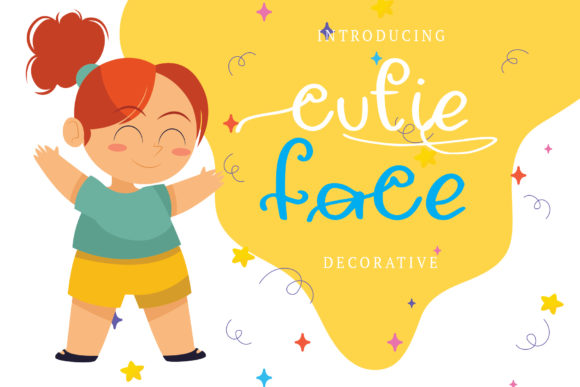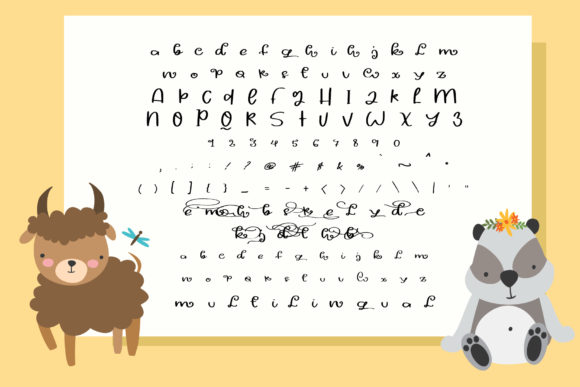
Introducing Cutie Face Font: The Ultimate Whimsical Handwritten Font
Are you tired of using the same old fonts in your designs? Do you want to add a touch of joy and playfulness to your creations? Look no further than Cutie Face Font, a beautiful, bouncy, and whimsical handwritten font that’s sure to brighten up any design.
What is Cutie Face Font?
Cutie Face Font is a unique and charming handwritten font that’s perfect for designers and crafters looking to add a personal touch to their work. With its bouncy and whimsical feel, this font is sure to capture the attention of your audience and leave a lasting impression.
Key Features of Cutie Face Font
- Beautiful and Unique: Cutie Face Font is a one-of-a-kind font that’s sure to make your designs stand out from the crowd.
- Whimsical and Playful: With its bouncy and irregular feel, this font is perfect for designs that require a touch of playfulness and fun.
- Handwritten: Cutie Face Font is a handwritten font that’s been carefully crafted to mimic the look and feel of real handwriting.
- Easy to Read: Despite its whimsical feel, Cutie Face Font is easy to read and understand, making it perfect for use in a variety of designs.
How to Use Cutie Face Font in Your Designs
Cutie Face Font is a versatile font that can be used in a variety of designs, from digital projects to print materials. Here are a few ideas for using this font in your work:
- Social Media Graphics: Add a touch of whimsy to your social media graphics with Cutie Face Font. Use it to create eye-catching headlines, quotes, and promotional messages.
- Branding and Packaging: Use Cutie Face Font to create unique and memorable branding and packaging designs. This font is perfect for businesses that want to stand out from the crowd and establish a playful brand identity.
- Invitations and Stationery: Add a personal touch to your invitations and stationery with Cutie Face Font. This font is perfect for creating custom wedding invitations, birthday cards, and other special occasion stationery.
- Digital Products: Use Cutie Face Font to create engaging and interactive digital products, such as ebooks, workbooks, and printables.
Benefits of Using Cutie Face Font
There are many benefits to using Cutie Face Font in your designs. Here are a few:
- Unique and Memorable: Cutie Face Font is a unique and memorable font that’s sure to make your designs stand out from the crowd.
- Emotional Connection: The whimsical and playful feel of Cutie Face Font can help create an emotional connection with your audience.
- Versatile: Cutie Face Font is a versatile font that can be used in a variety of designs, from digital projects to print materials.
- Easily Readable: Despite its whimsical feel, Cutie Face Font is easy to read and understand, making it perfect for use in a variety of designs.
Tips for Getting the Most Out of Cutie Face Font
Here are a few tips for getting the most out of Cutie Face Font:
- Use it Sparingly: While Cutie Face Font is a beautiful and unique font, it can be overwhelming if used too much. Use it sparingly to add a touch of whimsy to your designs.
- Pair it with Other Fonts: Cutie Face Font pairs well with other fonts, such as sans-serif fonts and script fonts. Experiment with different font combinations to find the perfect look for your design.
- Experiment with Colors: Cutie Face Font looks great in a variety of colors. Experiment with different colors and color combinations to find the perfect look for your design.
| Author | goodigital |
Cutie Face Font is a beautiful, bouncy, and whimsical handwritten font that’s perfect for designers and crafters looking to add a touch of joy and playfulness to their work. With its unique and memorable feel, this font is sure to capture the attention of your audience and leave a lasting impression. Whether you’re creating social media graphics, branding and packaging designs, or digital products, Cutie Face Font is a versatile font that can help you achieve your design goals.